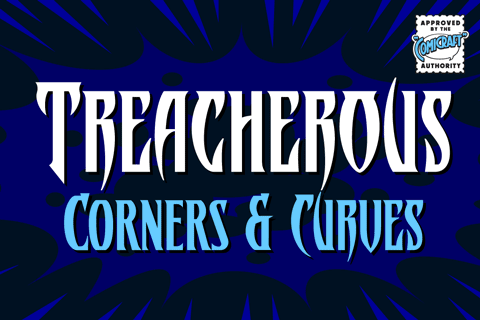
Treacherous Corners & Curves
Midnight, Pacific Coast Highway. You're driving home alone at night and your battery's dying. Your headlights have dimmed and you can barely see the road or the signpost up ahead. But there's an eerie green light glimmering in your rear view mirror and that strange warning uttered by the pump attendant at the Devil's Elbow gas station has put the frighteners on you.
Is that Satan's face glowering at you through the mist, or something far worse?
Two weights with upper & small cap alphabets